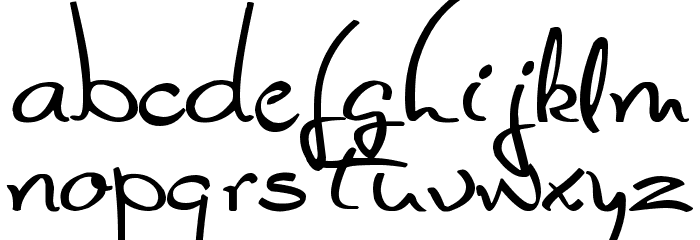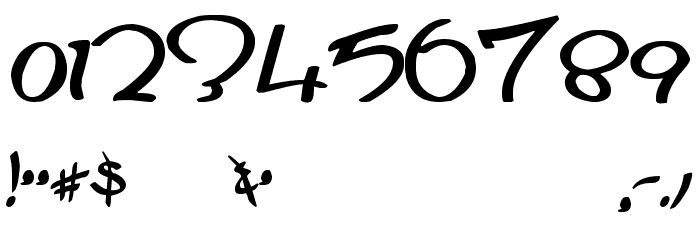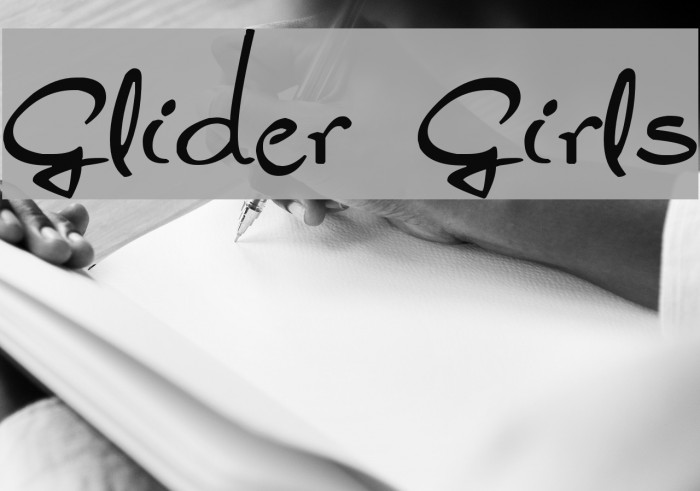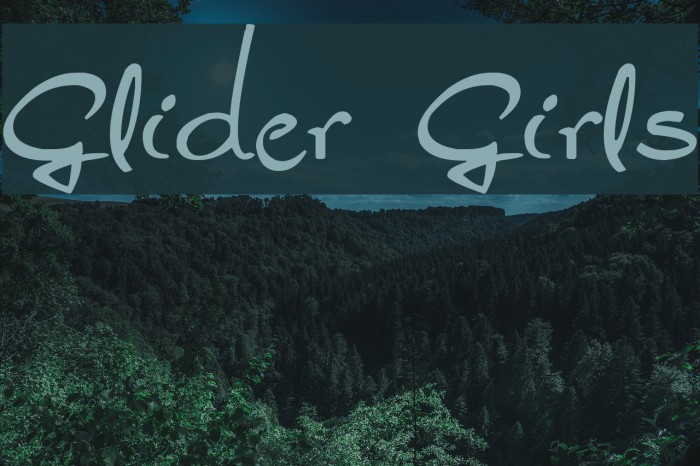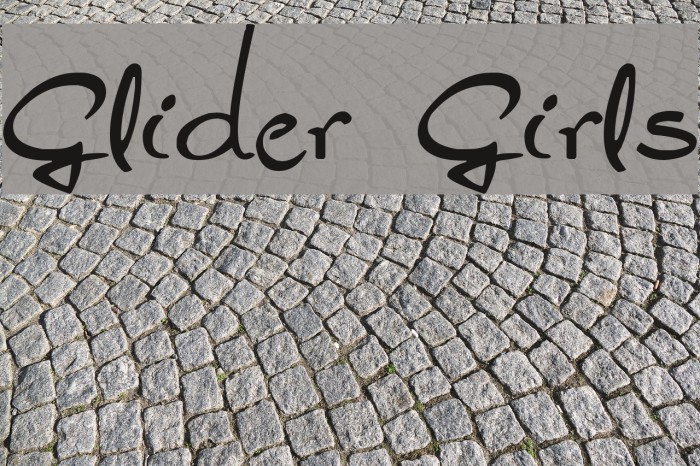
Glider Girls Font
This font features a dynamic and energetic script style, characterized by its fluid and interconnected letterforms. The uppercase letters exhibit a playful yet sophisticated flair, with unique loops and curves that add a sense of movement. The lowercase letters maintain a consistent flow, enhancing readability while preserving the artistic essence. Numbers are bold and slightly exaggerated, complementing the overall whimsical design. Special characters are creatively integrated, maintaining the font's cohesive aesthetic. This font is ideal for projects that require a touch of elegance and creativity.
A dynamic script font with fluid, interconnected letterforms and a playful aesthetic.